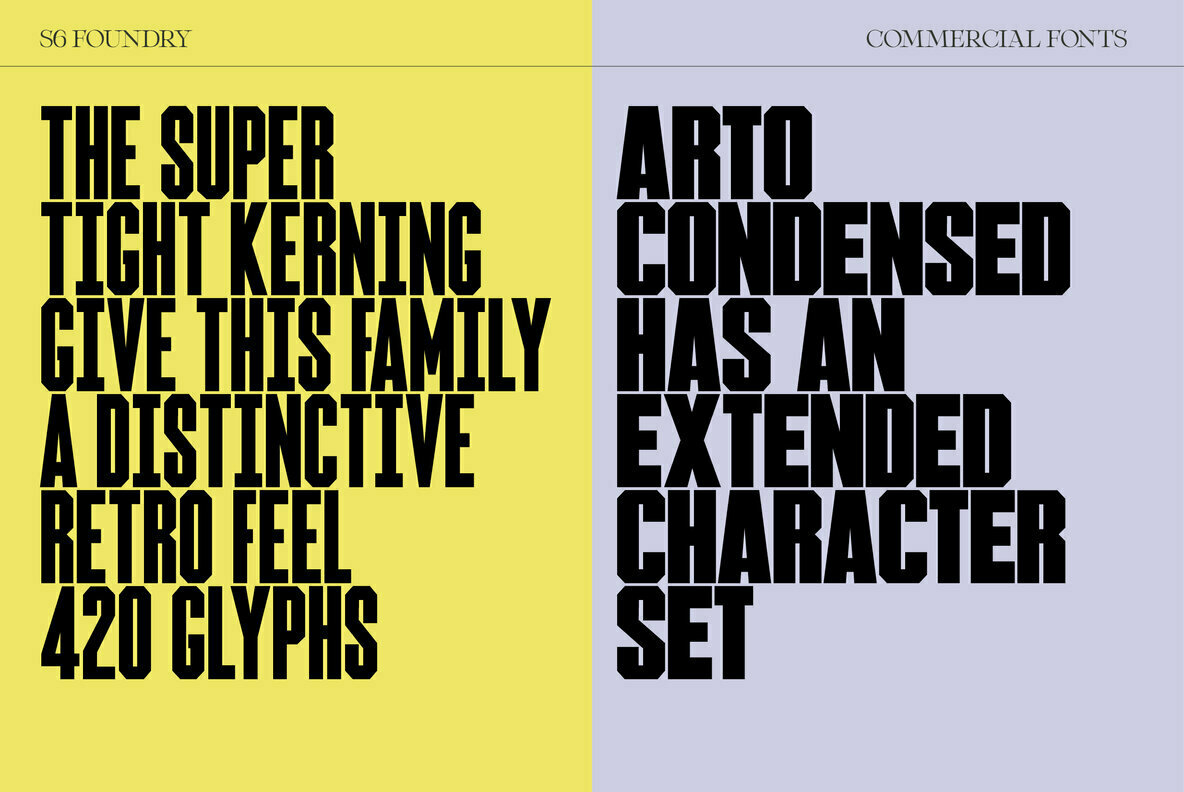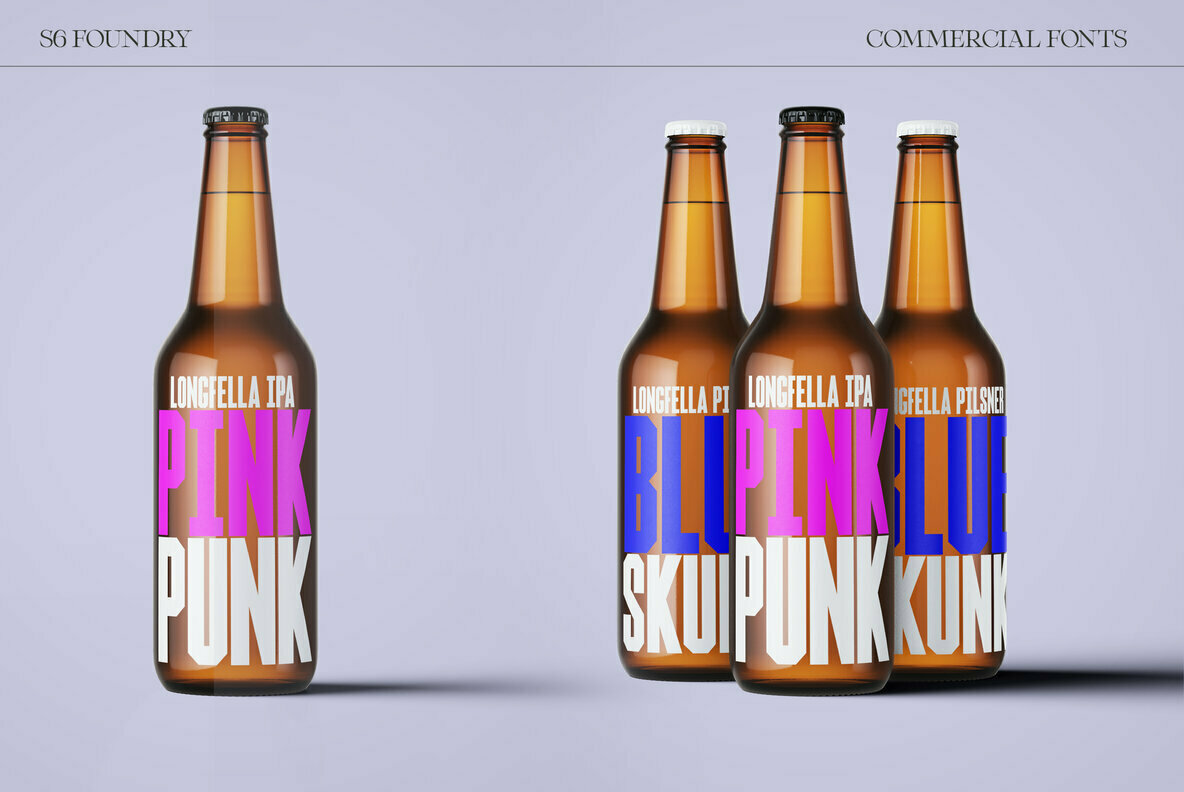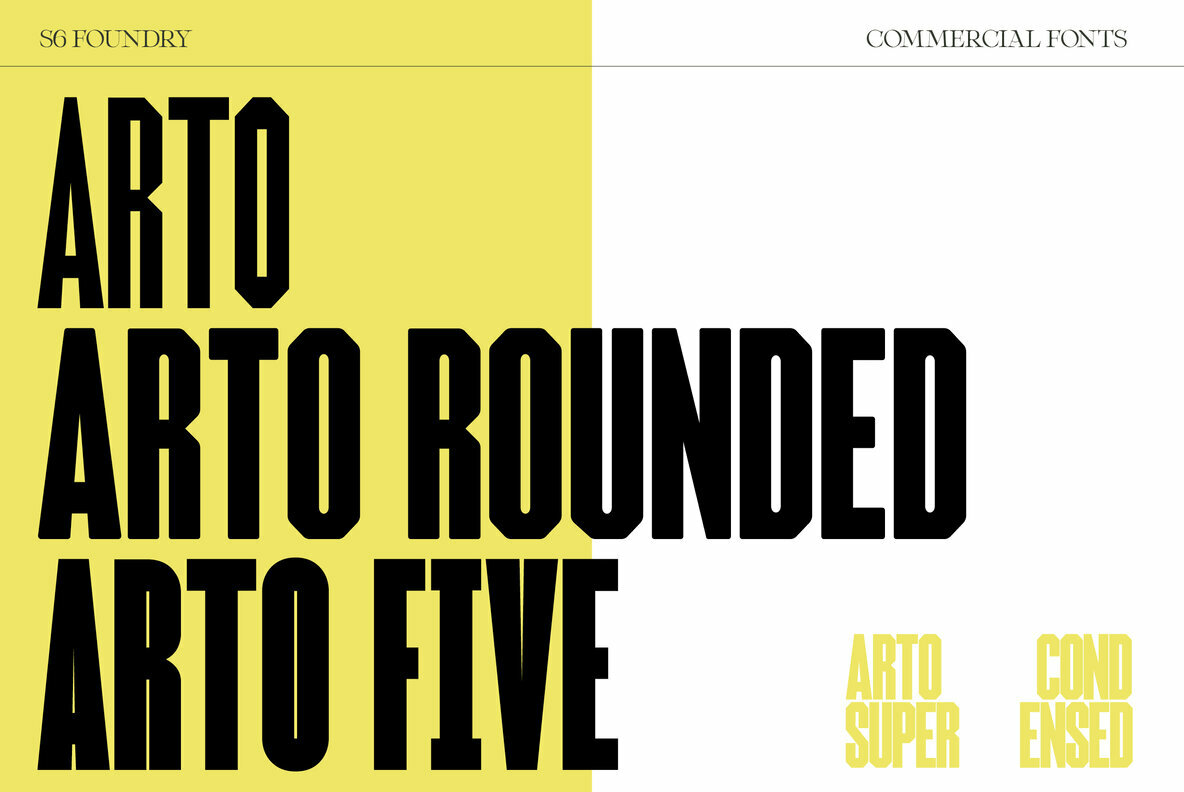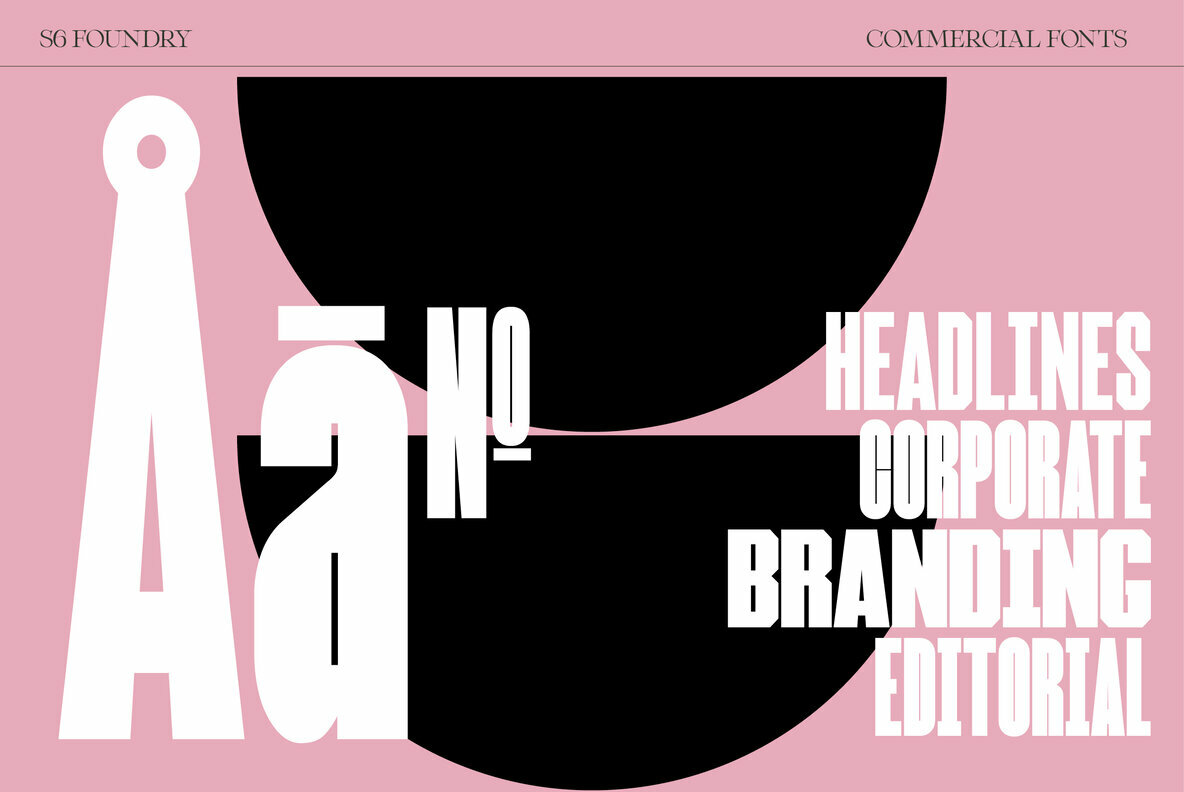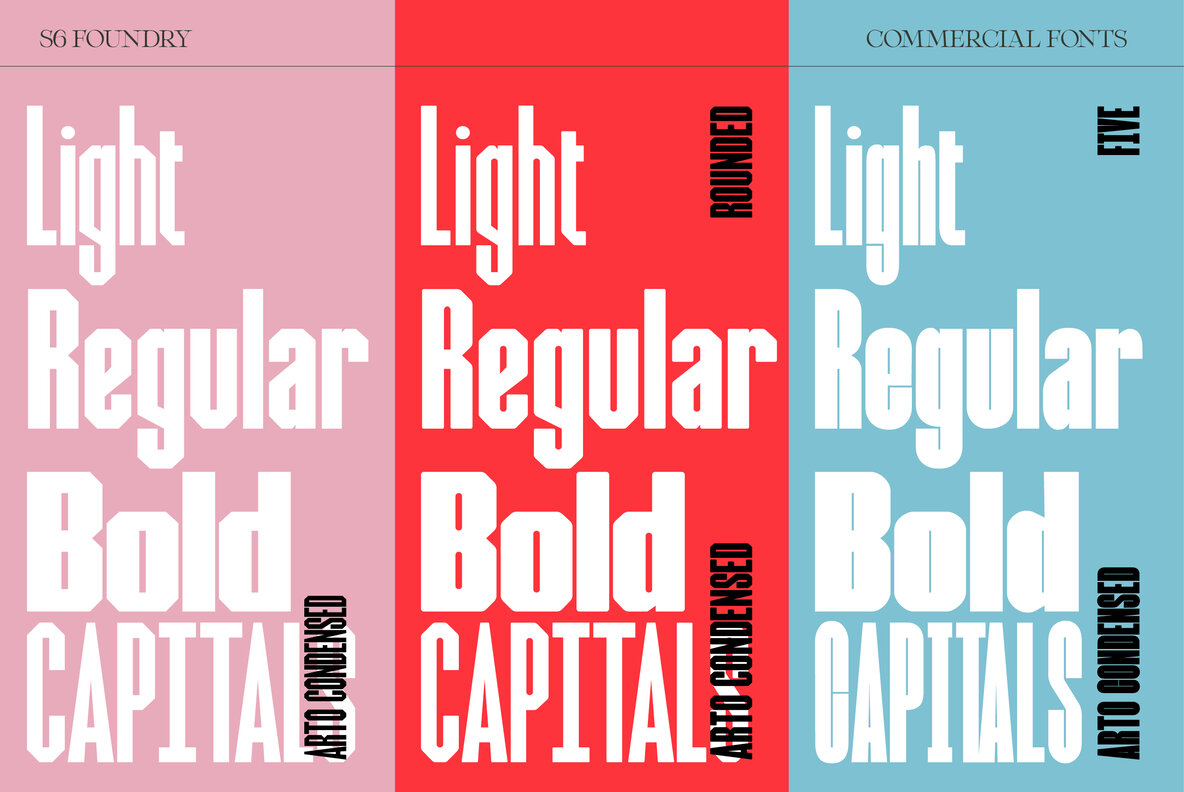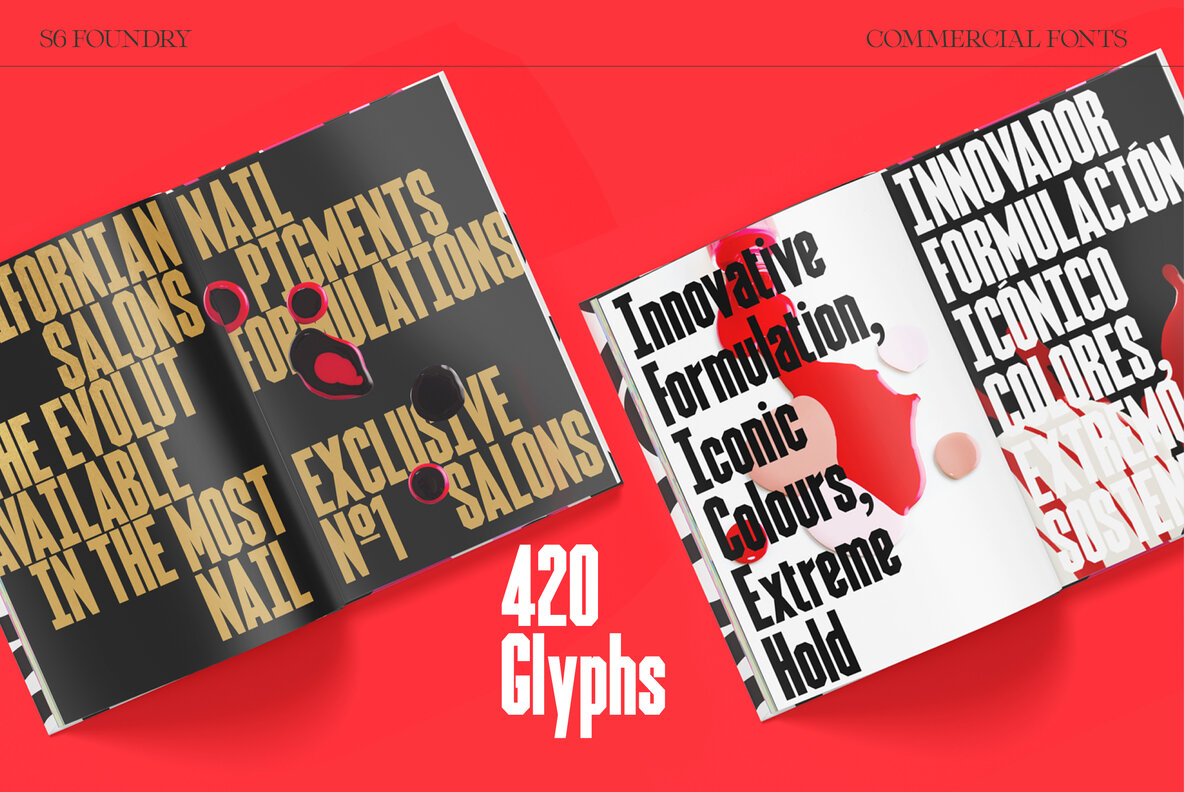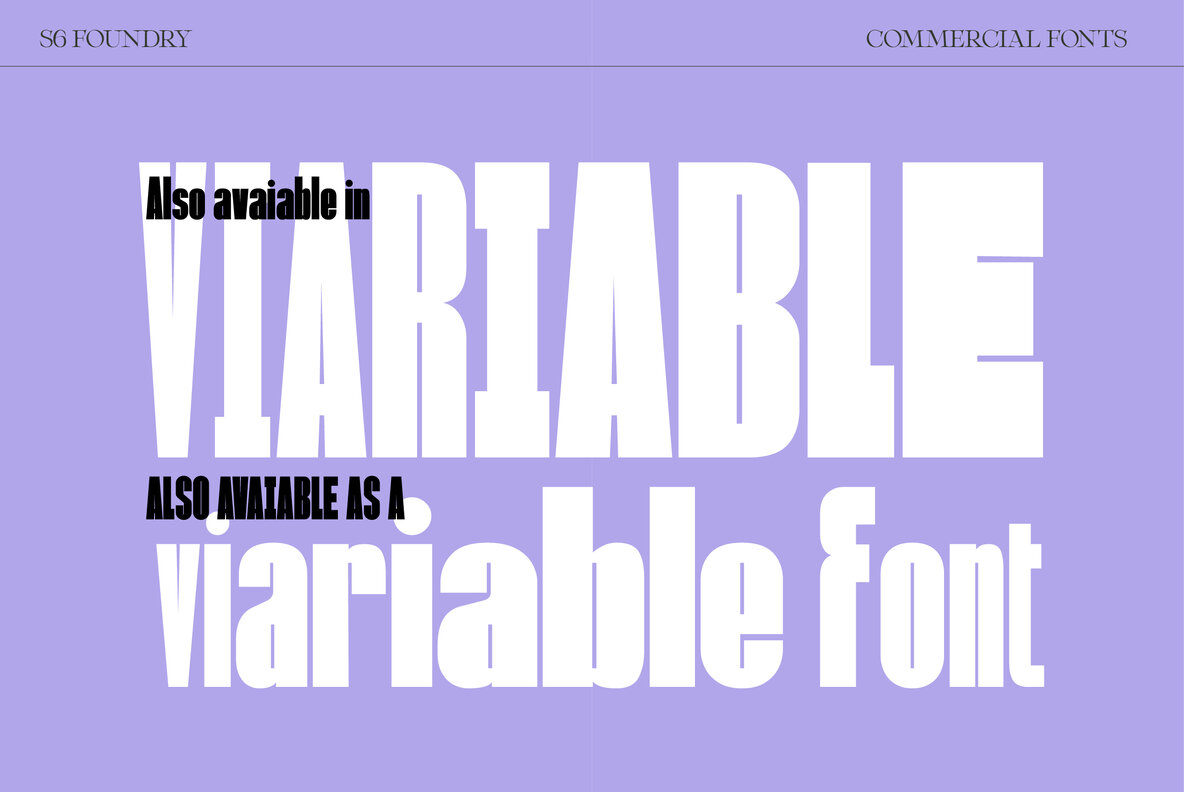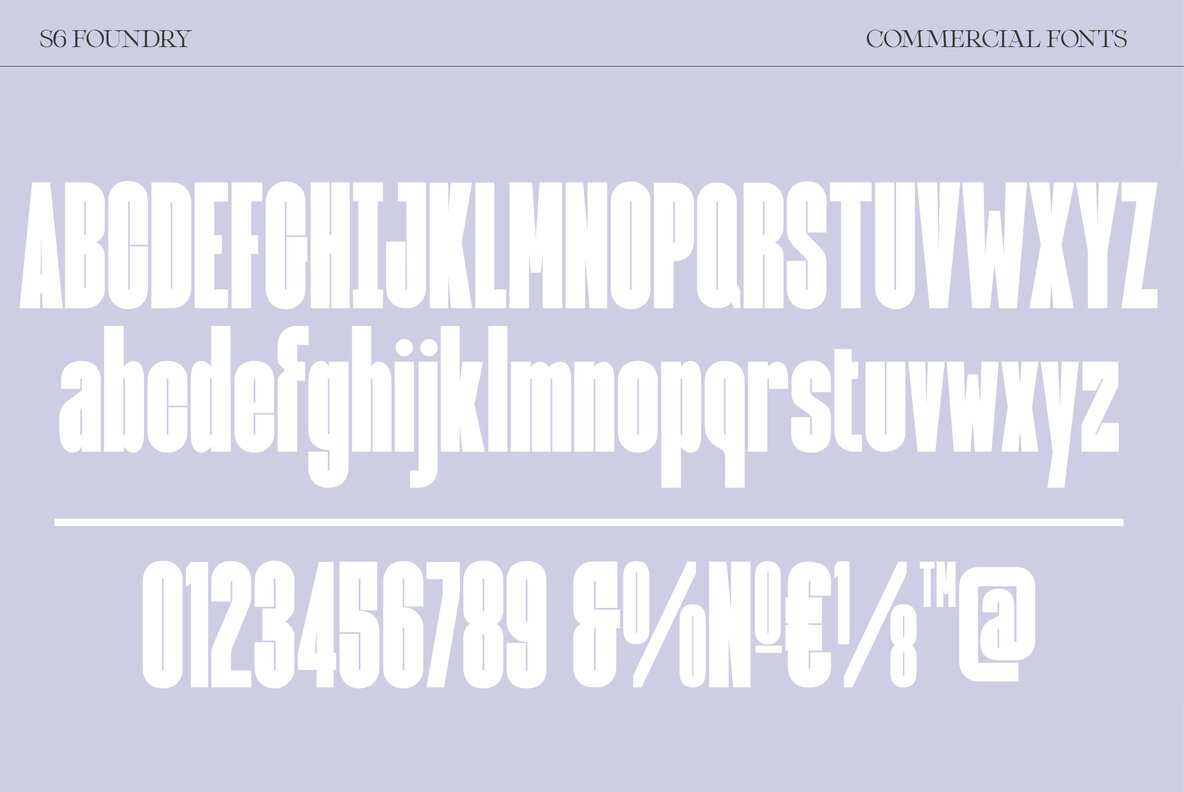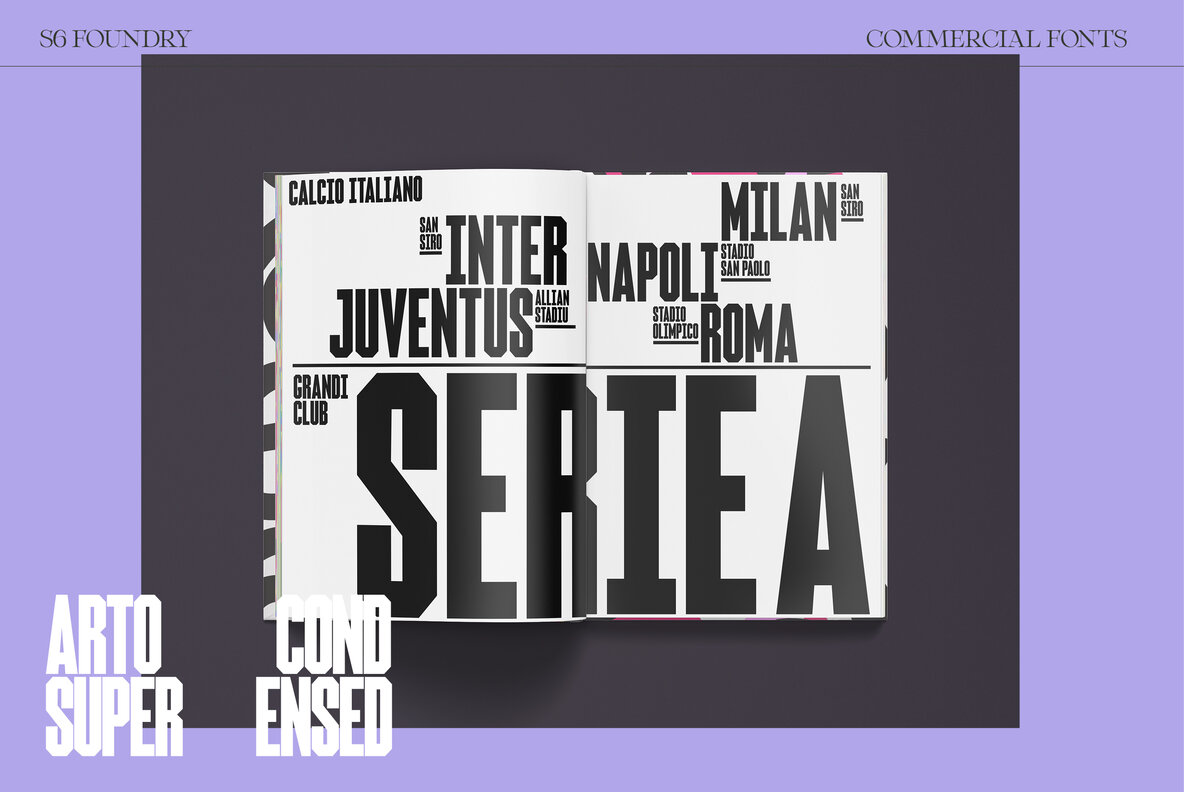
Arto Condensed Font
Arto is a unique super-condensed typeface, ideal for branding projects and editorials headlines. The super-tight kerning give this family a distinctive retro feel. The full family is a go-to font for making projects distinctive, allowing projects to stand out. Arto Condensed has an extended character set to support Central and Eastern European as well as Western European language.
This font family comes in 3 weights
There is also a Variable font version of the family
Supported Languages: Western Europe, Central/Eastern Europe, Baltic, Turkish, Romanian